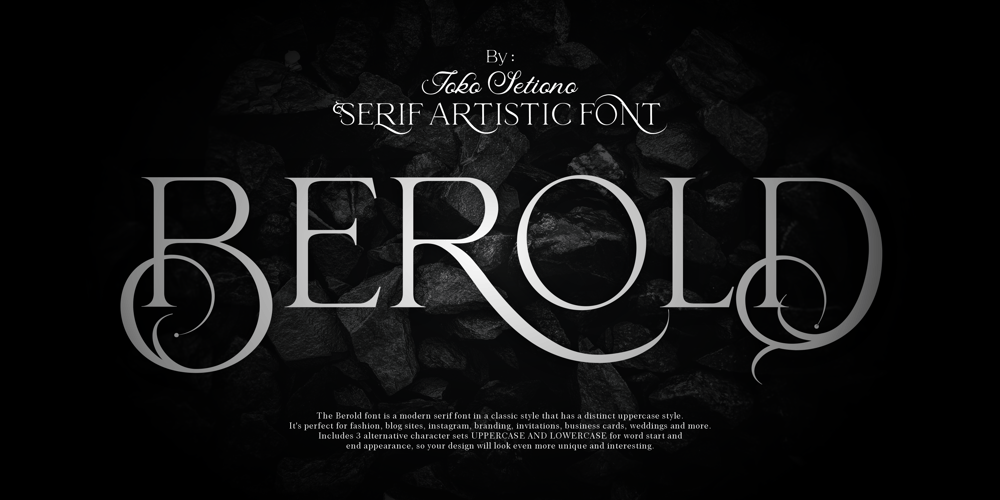
Berold Artistic
Berold Artistic font
Berold Artistic Font Family was designed by Joko Setiono and published by Arttype7. Berold Artistic contains 2 styles and family package options. The Berold font is a modern serif font in a classic style that has a distinct uppercase style. It’s perfect for fashion, blog sites, instagram, branding, invitations, business cards, weddings and more. Includes 3 alternative character sets UPPERCASE AND LOWERCASE for word start and end appearance, so your design will look even more unique and interesting.